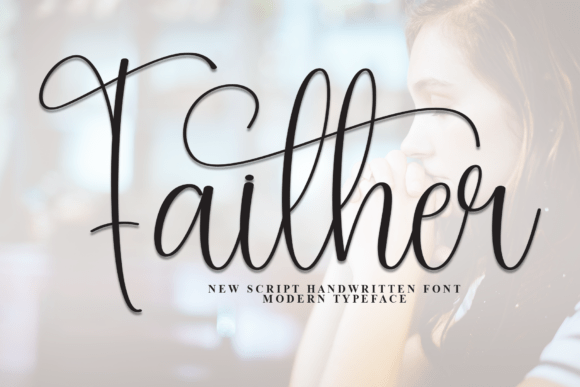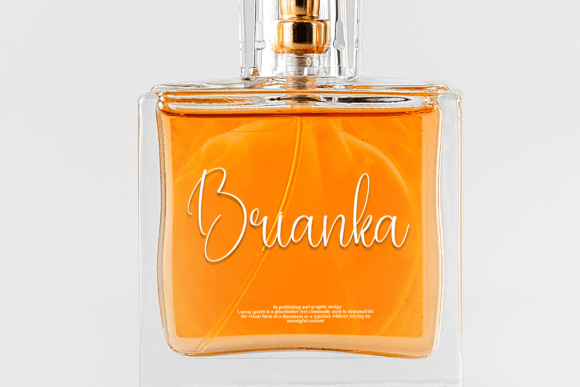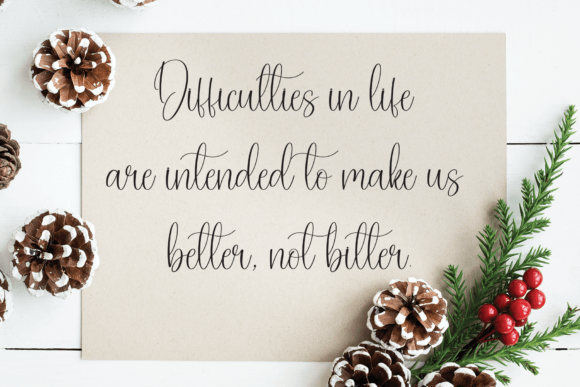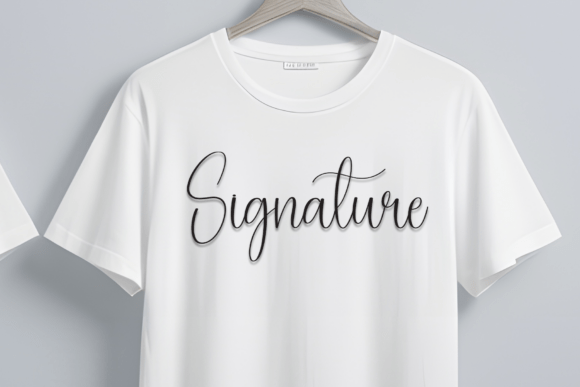
Faither Font: Elegant Handwritten Script for Wedding & Branding
About the Faither Font
Elevate your designs with Faither Font, a font that combines sophistication with readability. Faither is a stylish handwritten script font that captures elegance and playfulness in every stroke. With flowing curves and a natural rhythm, it adds a personal, charming touch to invitations, branding, and social media. Its graceful design brings warmth, sophistication, and creativity to any project
Faither excels in applications requiring a touch of personal charm and elegance, such as wedding invitations, stationery, and branding for boutique businesses or lifestyle products. It works beautifully in short headlines, quotes, and logos, adding a sophisticated yet approachable feel. However, its handwritten nature makes it less suitable for large bodies of text or UI elements where readability is paramount.
Consider pairing Faither with a clean sans-serif like Montserrat for a modern contrast, or a classic serif like Playfair Display for a more traditional, timeless feel. A simple, geometric sans-serif could also provide a strong counterpoint, enhancing Faither’s inherent elegance.
Its core personality is best described as sophisticated yet playful; elegant but approachable. This makes it ideal for brands aiming for a balance between high-end quality and a friendly, personable image.
Faither Font Usage Examples
Faither Font Example